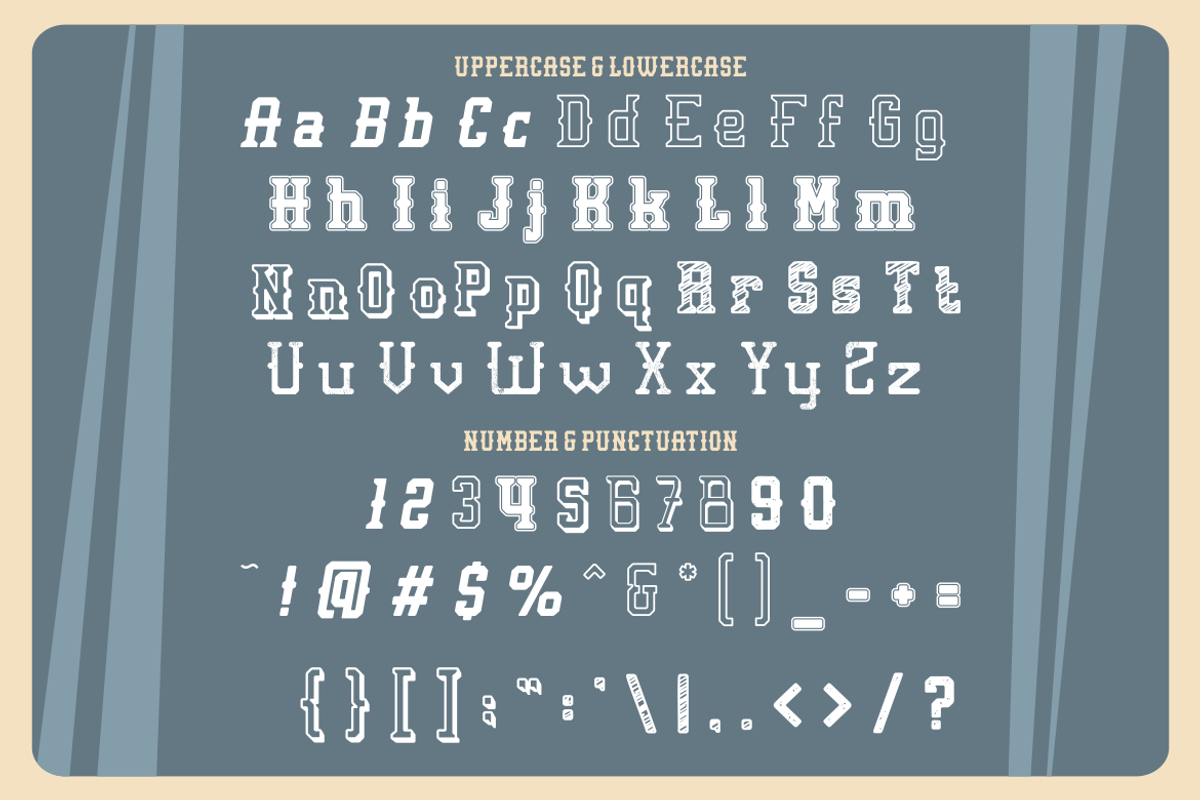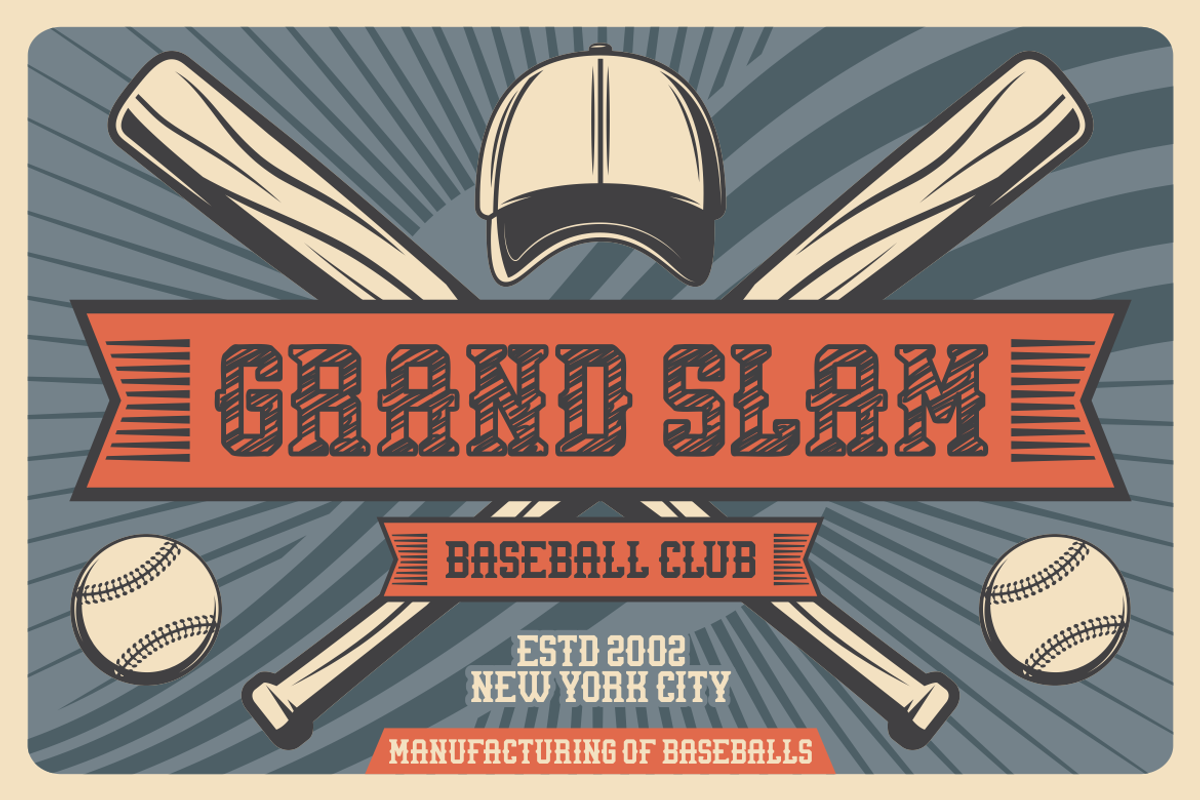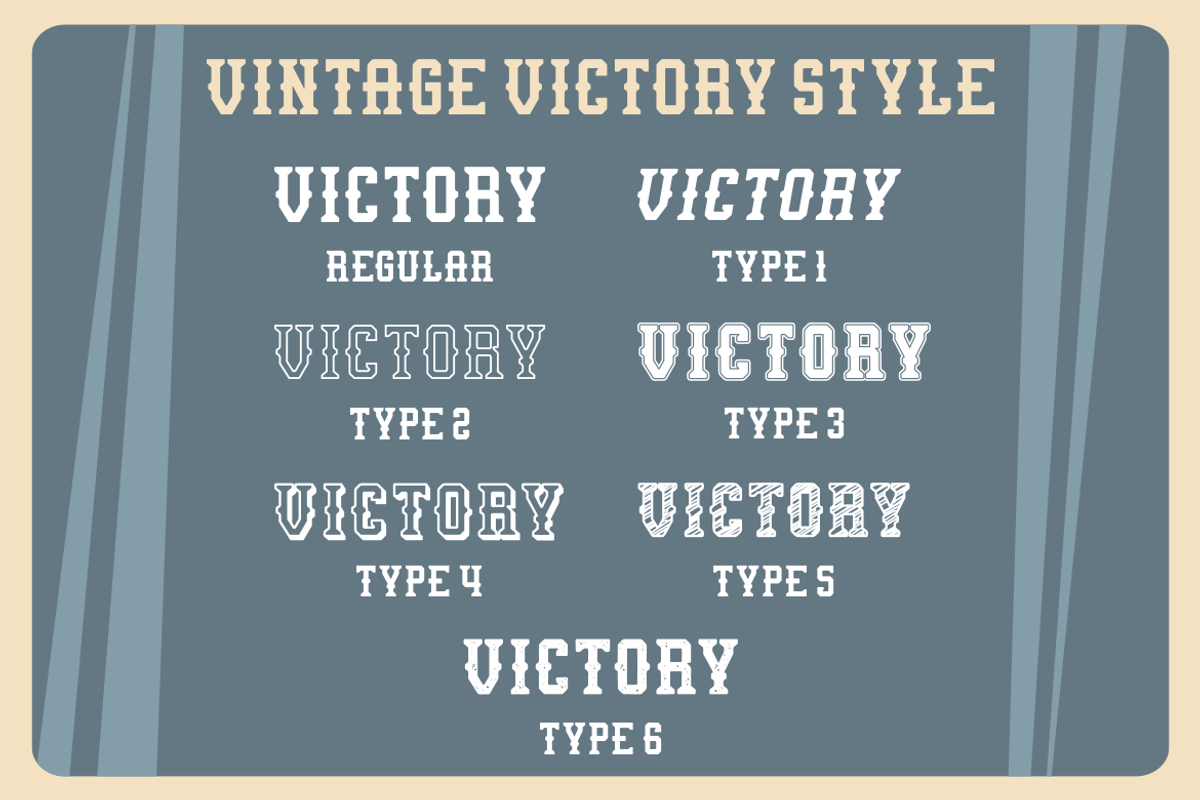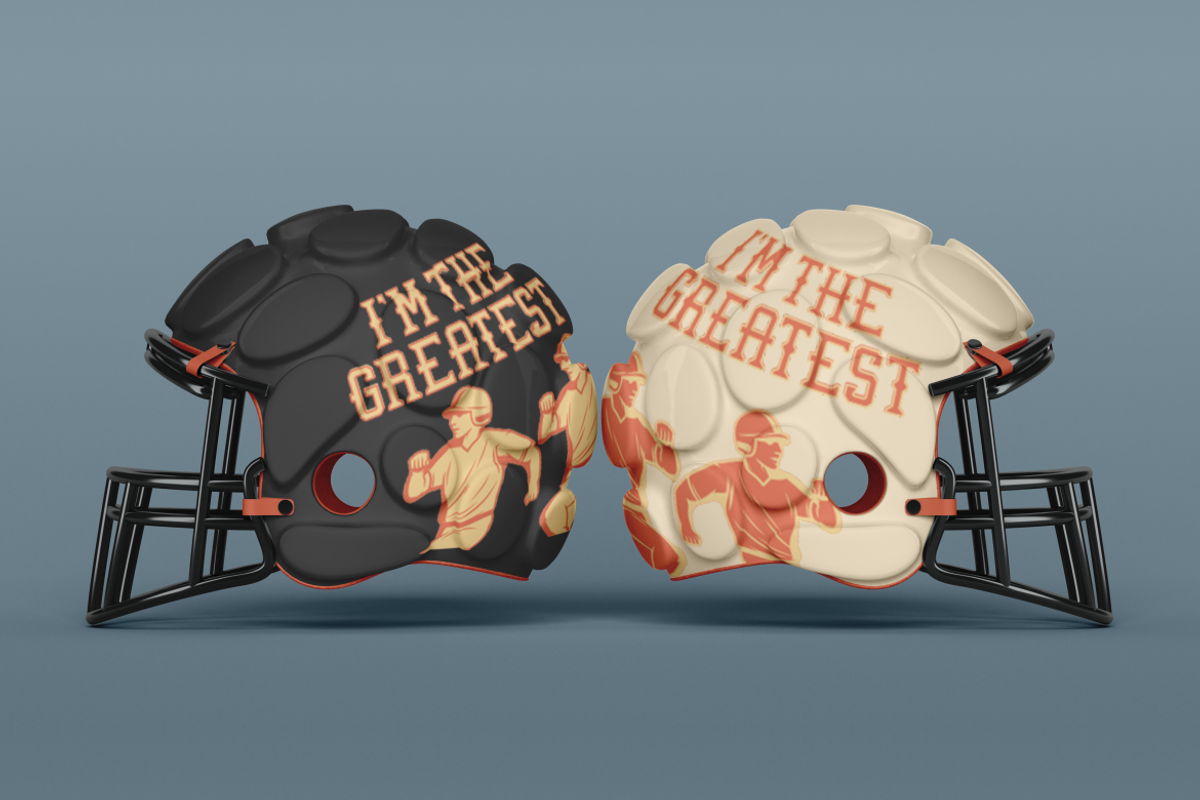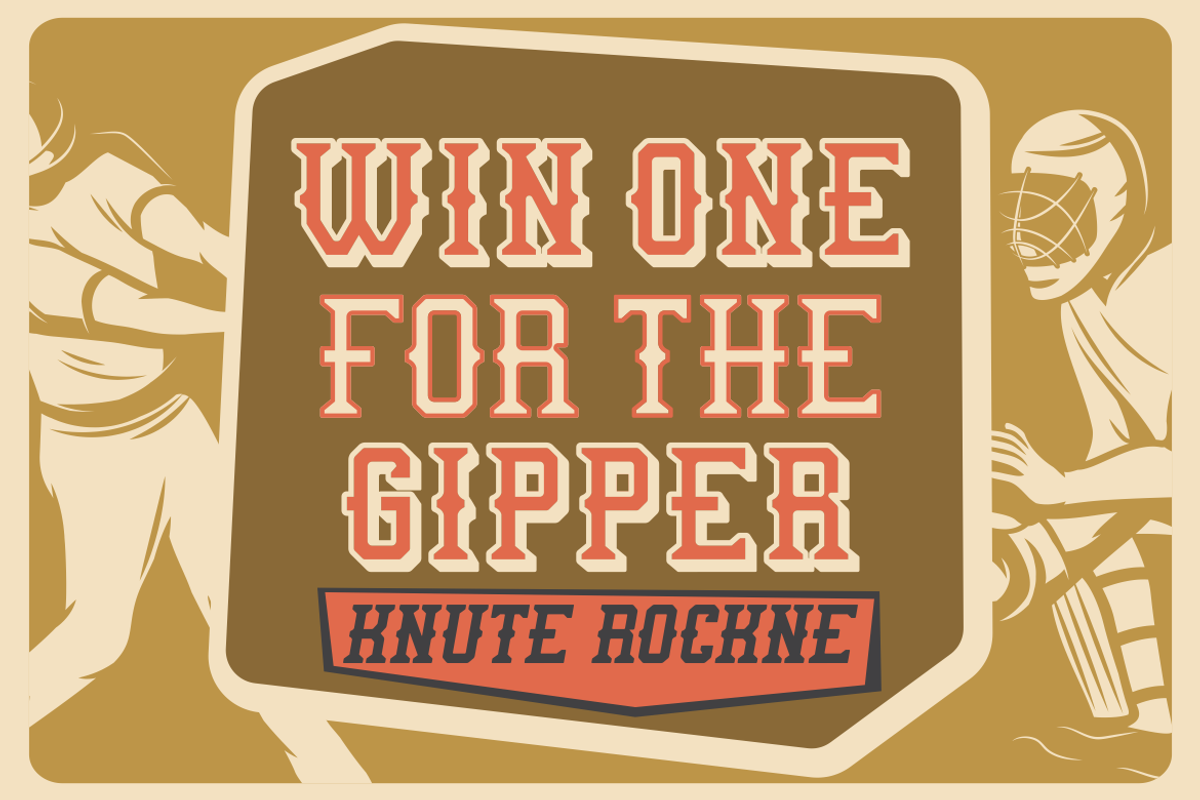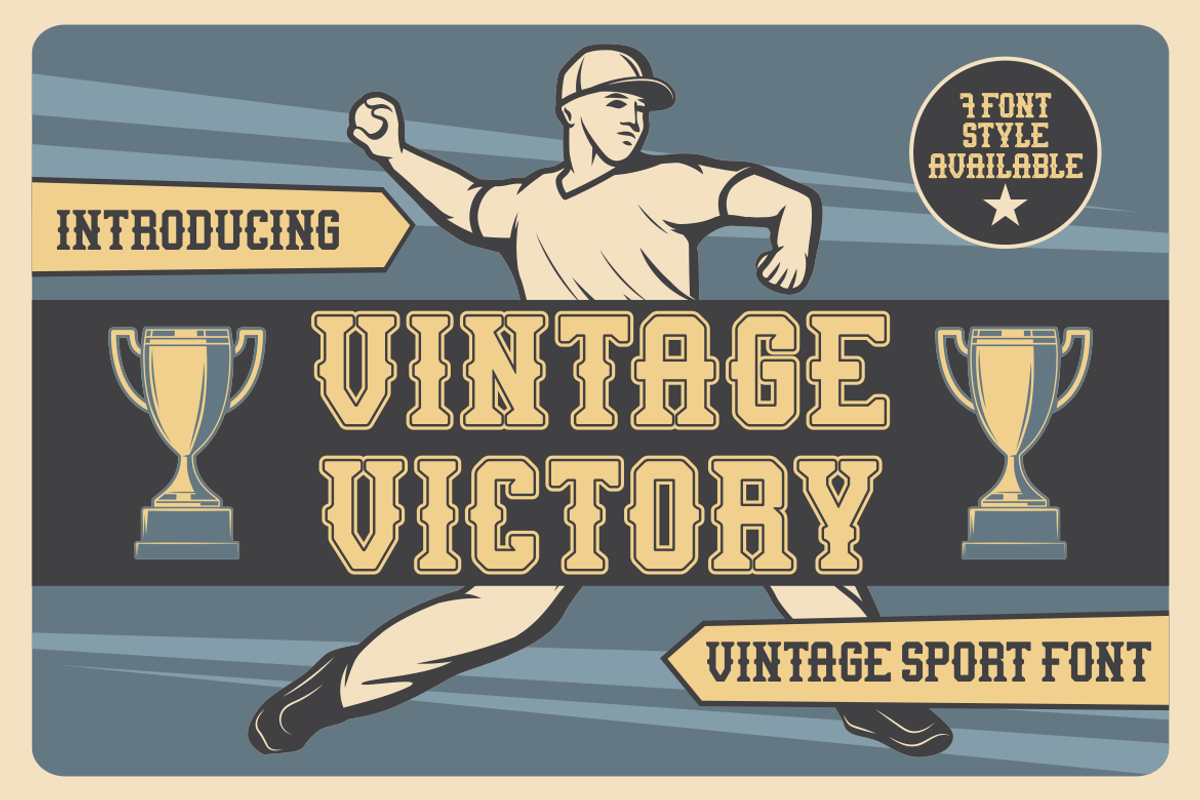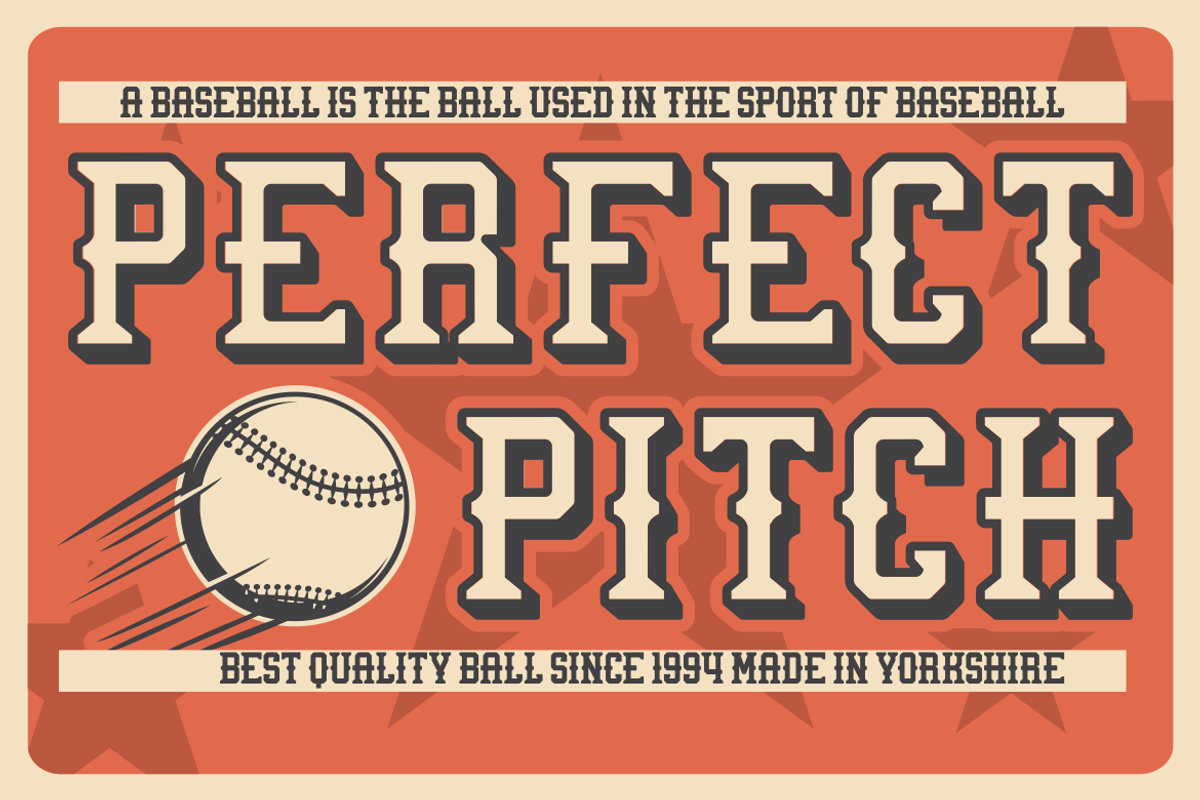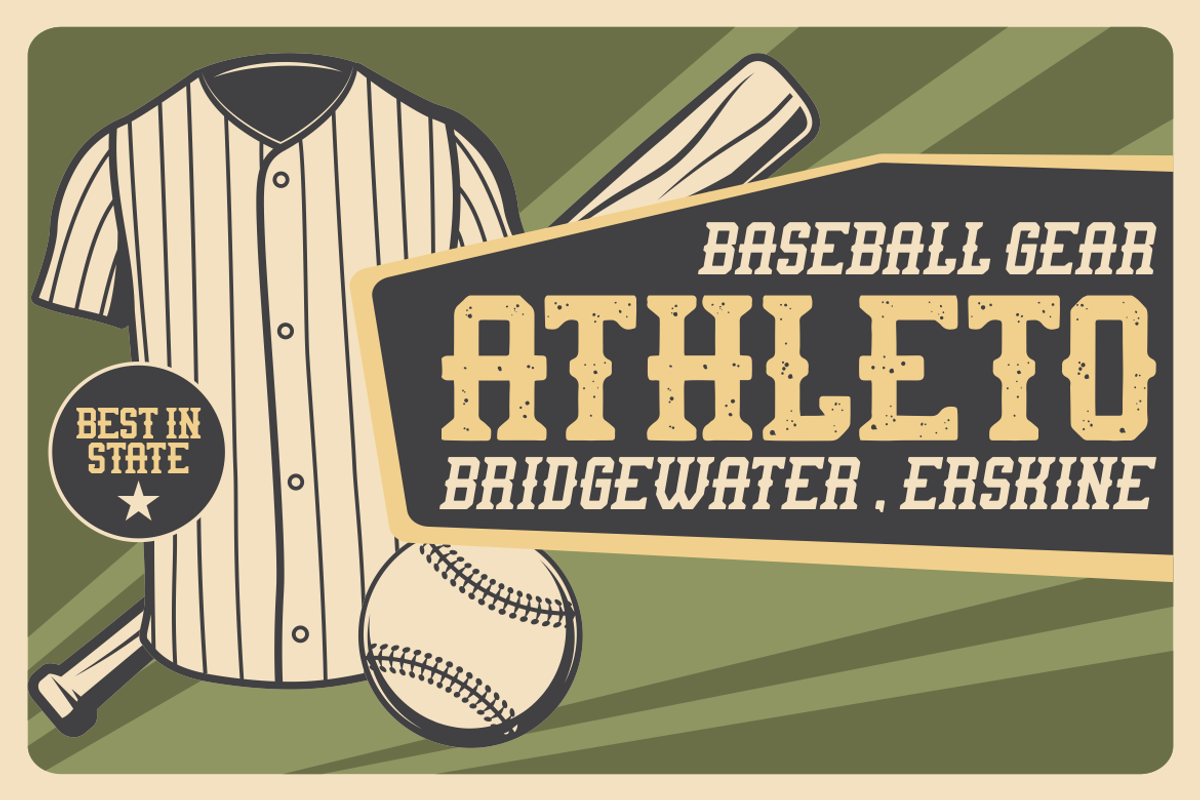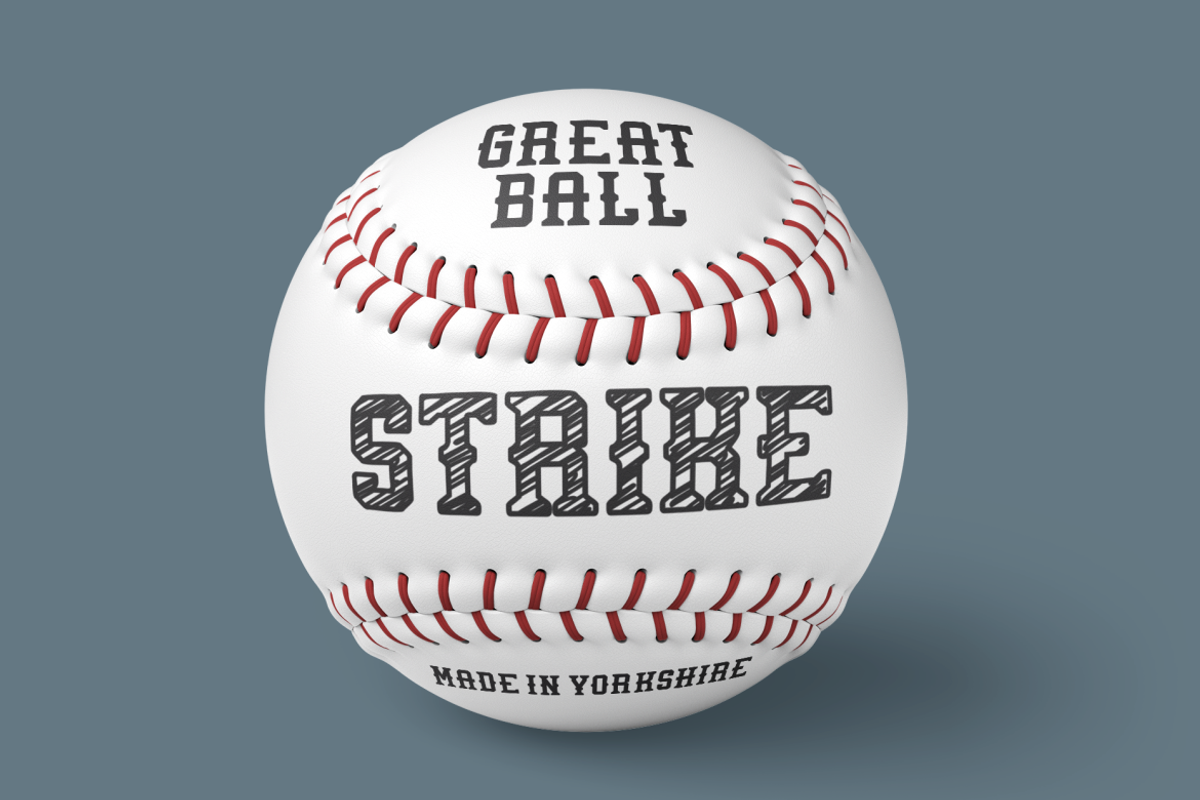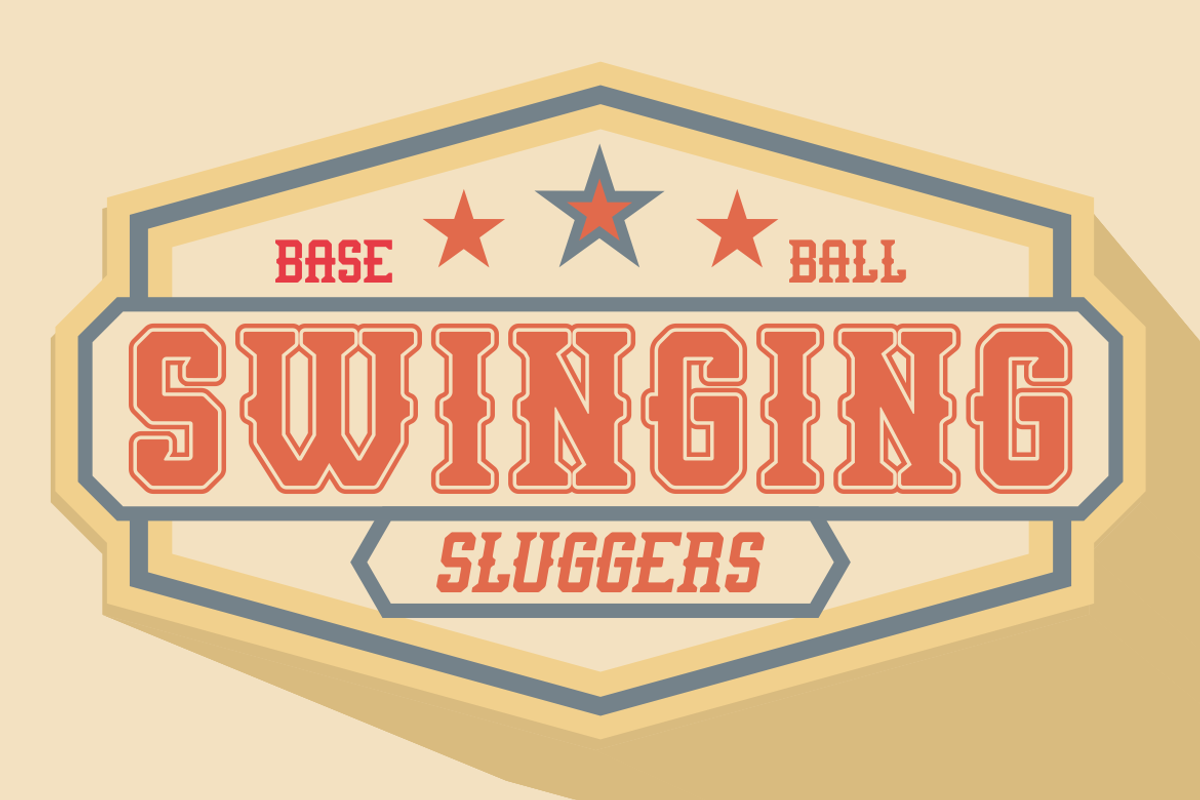
Vintage Victory - Vintage Sport Font
Introducing Vintage Victory - Vintage Sport Font, a bold and striking display typeface that captures the essence of classic athletic design. With its slab serif style and vintage appeal, this font brings a touch of nostalgia and strength to any project. Its bold, robust characters make it perfect for sports-themed designs, evoking a sense of competition and triumph. Whether you’re working on a logo for a sports team, crafting a retro-inspired poster, or creating standout packaging, Vintage Victory delivers an impactful look with a timeless aesthetic. Its versatility makes it ideal for both digital and print design, giving your projects a bold and competitive edge.
The Vintage Victory font comes in seven different styles, offering flexibility to suit various design needs. It's an excellent choice for branding, as its strong and classic look leaves a lasting impression. Use it for business logos, book covers, film titles, or even crafting invitations and posters with a vintage sports theme. Its bold letters also work well for stickers, packaging, and magazine layouts that require a vintage, yet powerful feel. Vintage Victory combines the best of old-school charm with modern versatility, making it a perfect choice for any project that needs a touch of classic boldness.